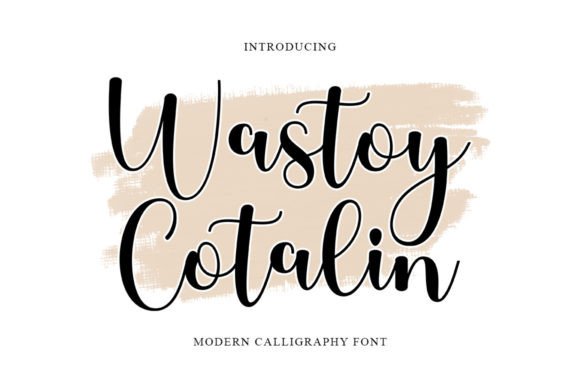
Introducing Wastoy Cotalin Font - The Epitome of Elegance and Charm in Script Typography
Embark on a typographic journey with Wastoy Cotalin, a script font family that exudes both warmth and sophistication. Its meticulously crafted curves and delicate strokes evoke a sense of timeless beauty, making it the perfect choice for adding a touch of elegance to your creative projects.
With its graceful lines and flowing characters, Wastoy Cotalin captures the essence of charm and personality. Its versatility knows no bounds, making it suitable for a wide range of applications, from wedding invitations and thank-you cards to logos, business cards, and eye-catching social media posts.
Immerse yourself in the world of Wastoy Cotalin and discover a font that brings your words to life. Its PUA encoding ensures effortless access to a treasure trove of glyphs and ligatures, empowering you to create captivating designs that leave a lasting impression.
Unleash your creativity and let Wastoy Cotalin guide you towards typographic excellence. Its versatility and charm will transform your designs, turning them into masterpieces that radiate elegance and sophistication.
Elevate your designs to new heights with Wastoy Cotalin - a font that speaks volumes without uttering a single word. Its beauty and versatility will captivate your audience, leaving them spellbound by the eloquence of your creations.